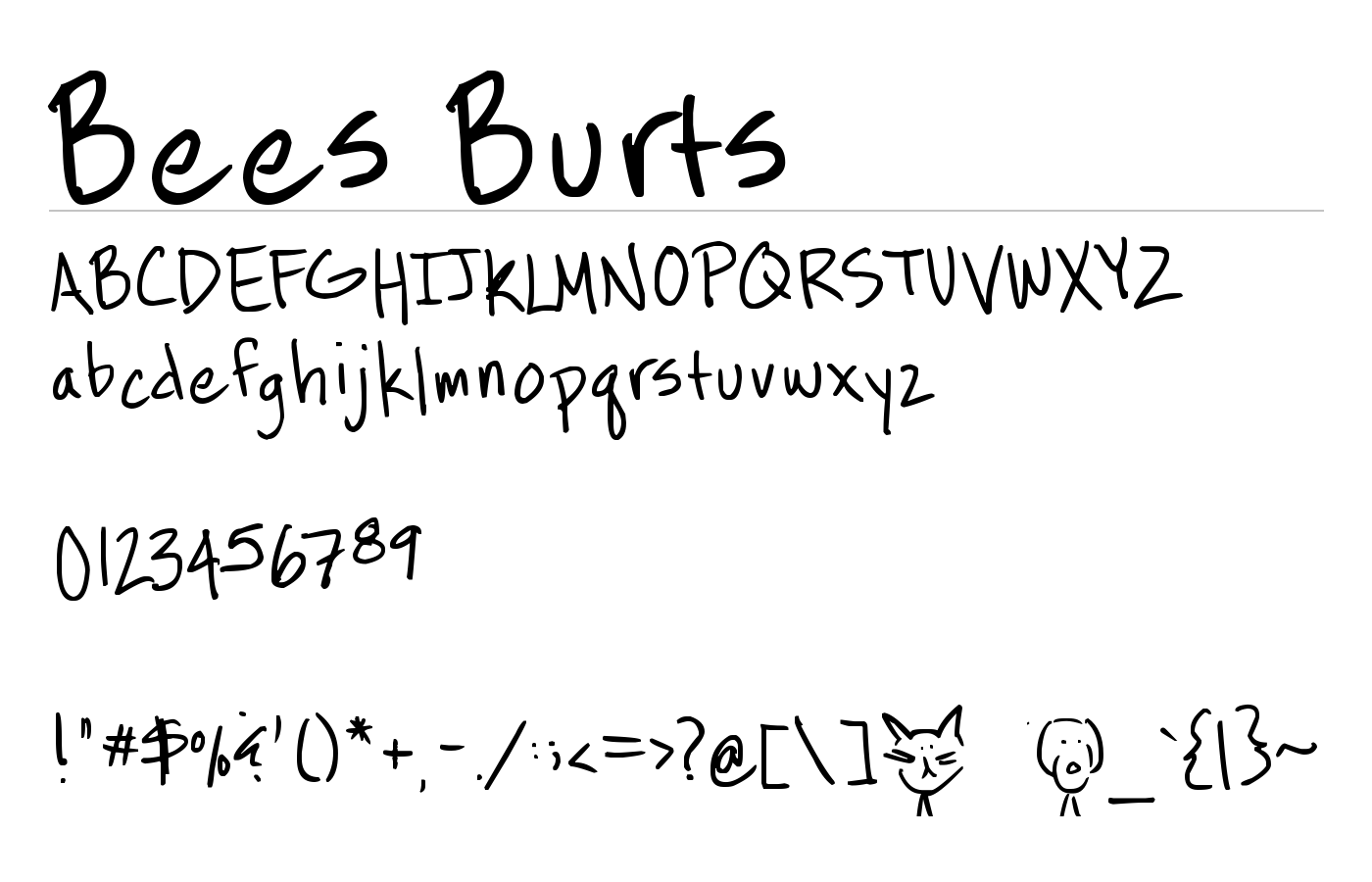
Bees Burts is a playful and casual handwritten font with a light, airy feel and uneven strokes that mimic natural penmanship. Its irregular shapes and quirky character details give it a friendly, approachable personality, making it ideal for informal designs, children's projects, or creative branding. This font works best in headlines, logos, and packaging where a fun, personal touch is welcomed.
Bees Burts Font
About Bees Burts Font